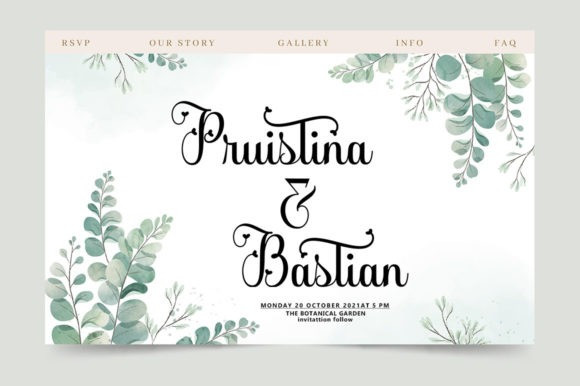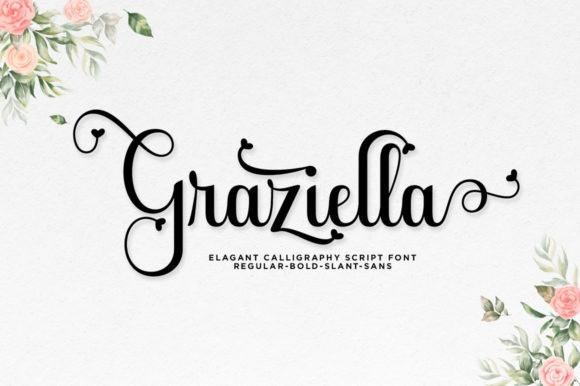
Graziella Font
Graziella Script Font is a ravishing script font. This font is neatly crafted and highly detailed. Whatever the topic, this font will be a wonderful asset to your font library, as it has the potential to enhance any creation.